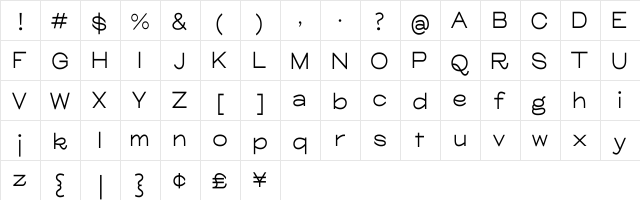
Glora Medium Regular Font Preview
Glora Medium Regular
Glora Medium Regular Font Details
| Designer | Khaiuns |
Design Context for Glora Medium Typeface
Glora Medium offers clean, dependable letterforms without strong stylistic allegiance, making it a practical choice for designers who need flexibility.